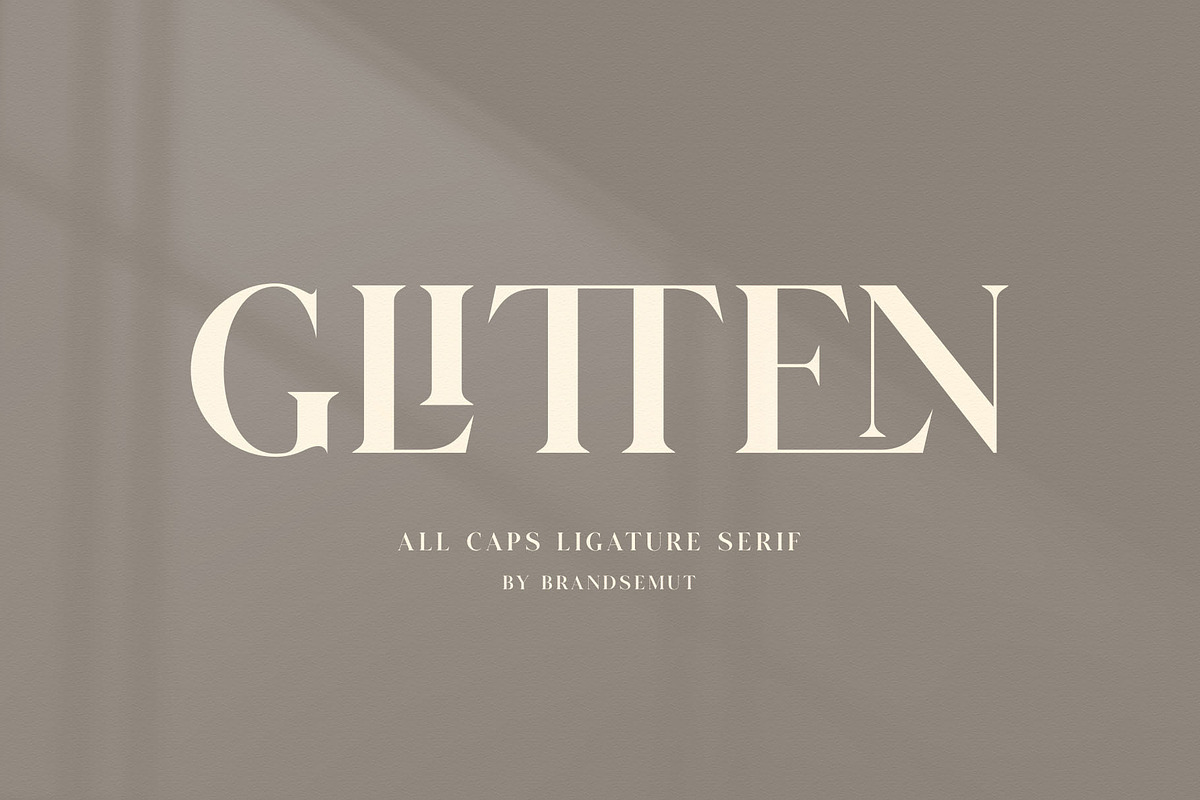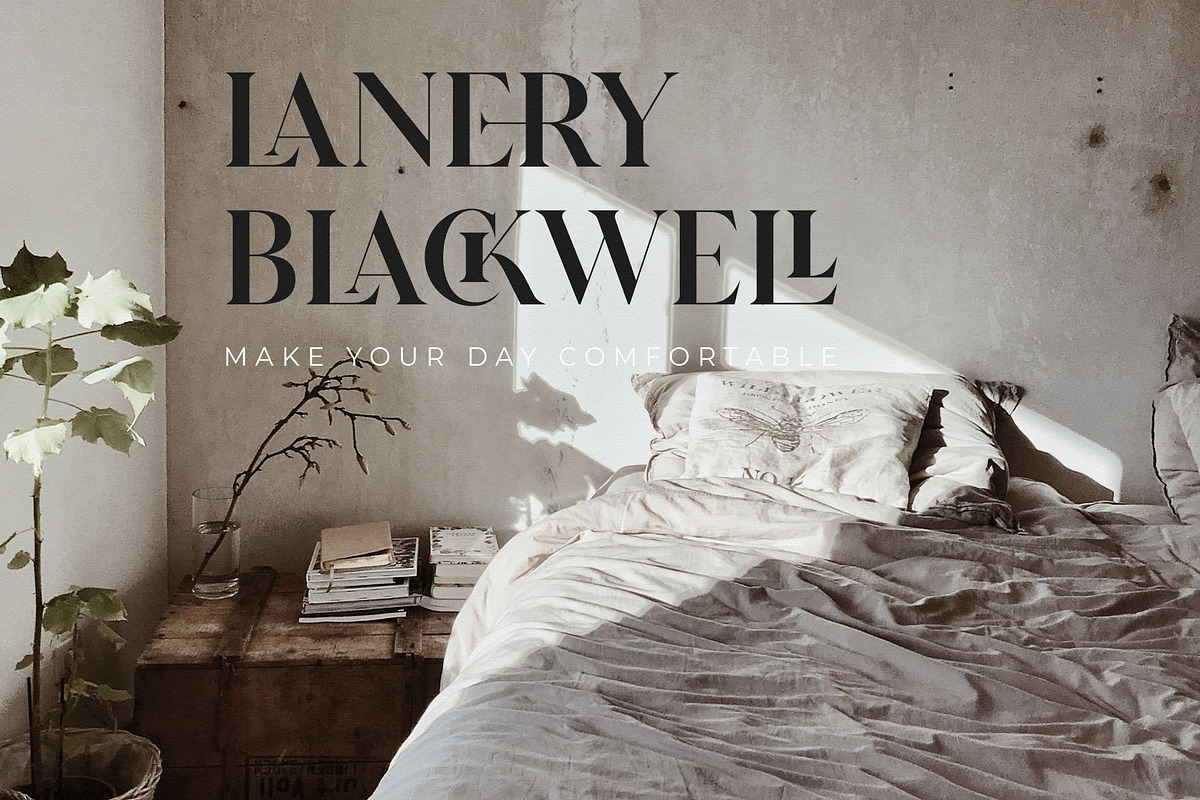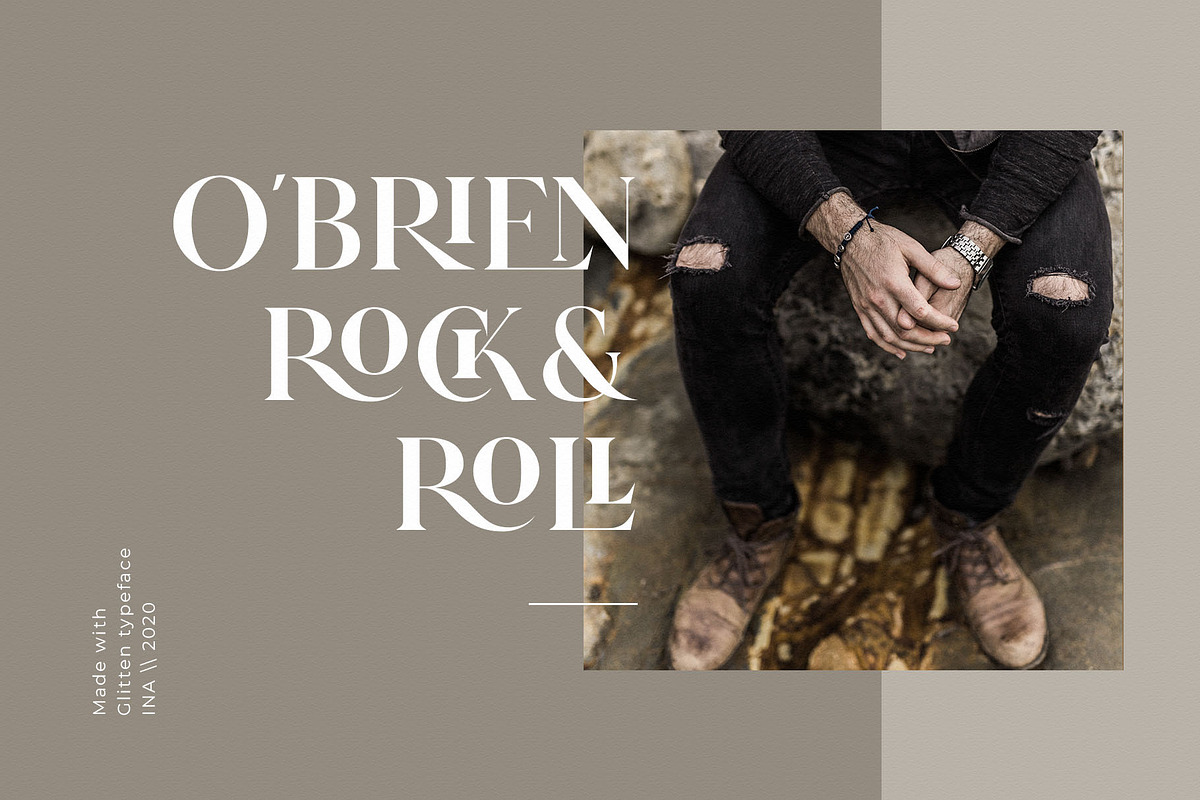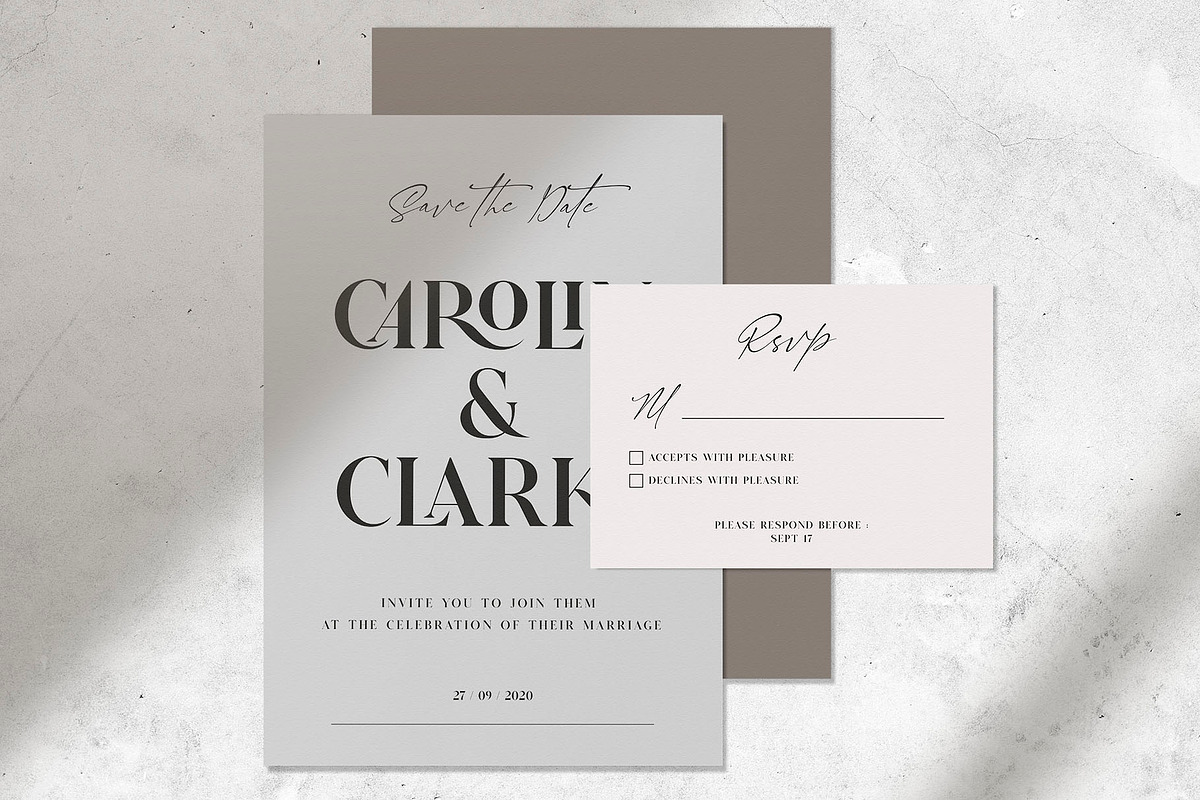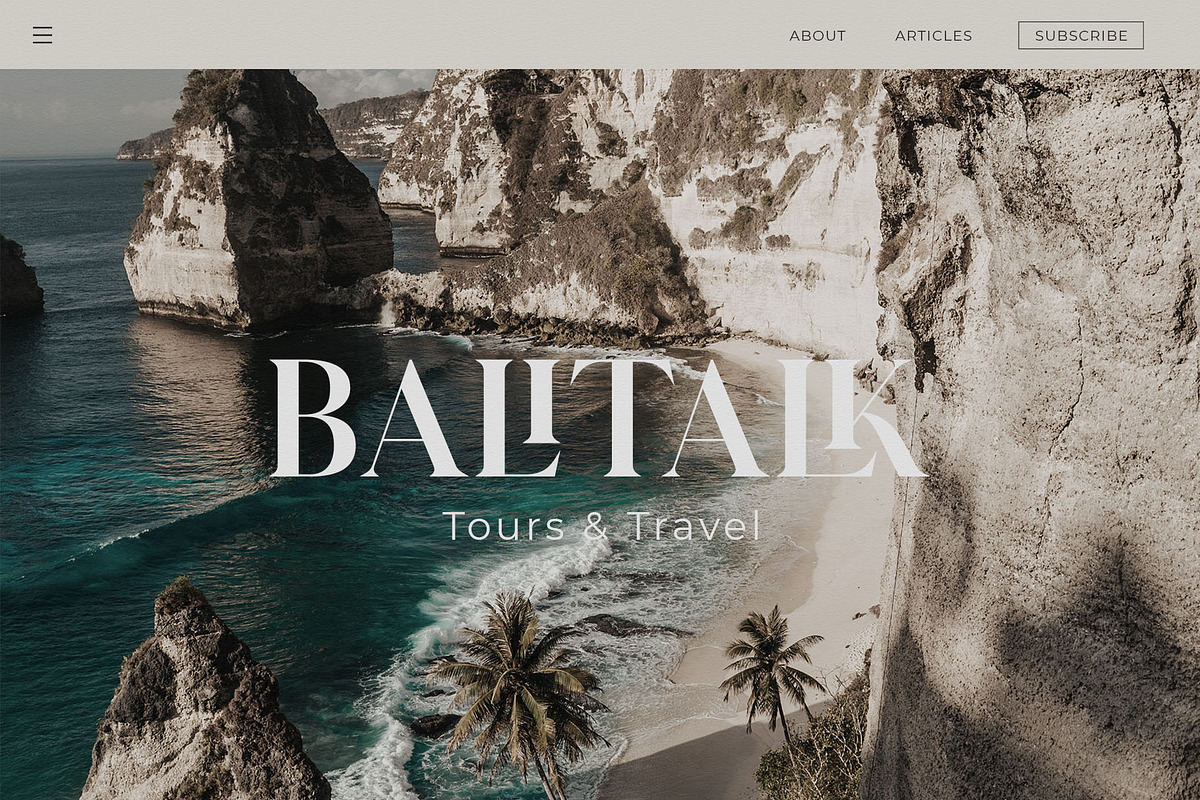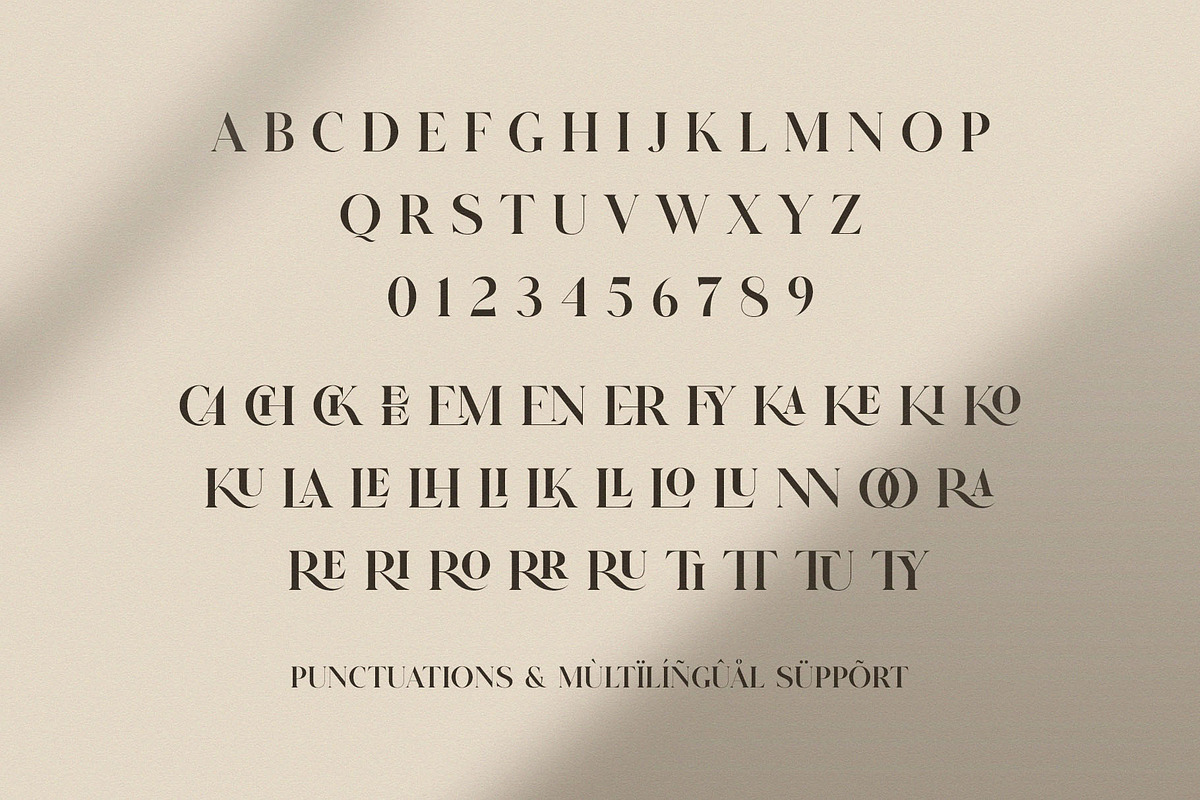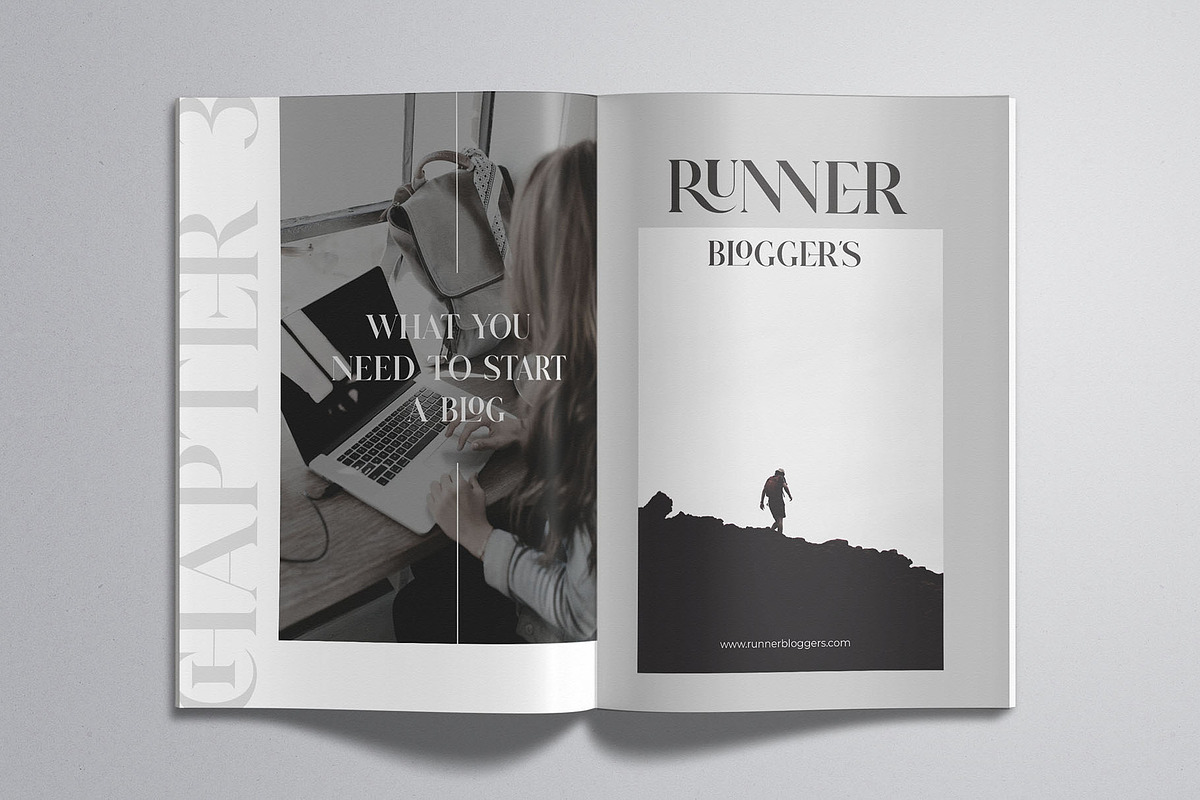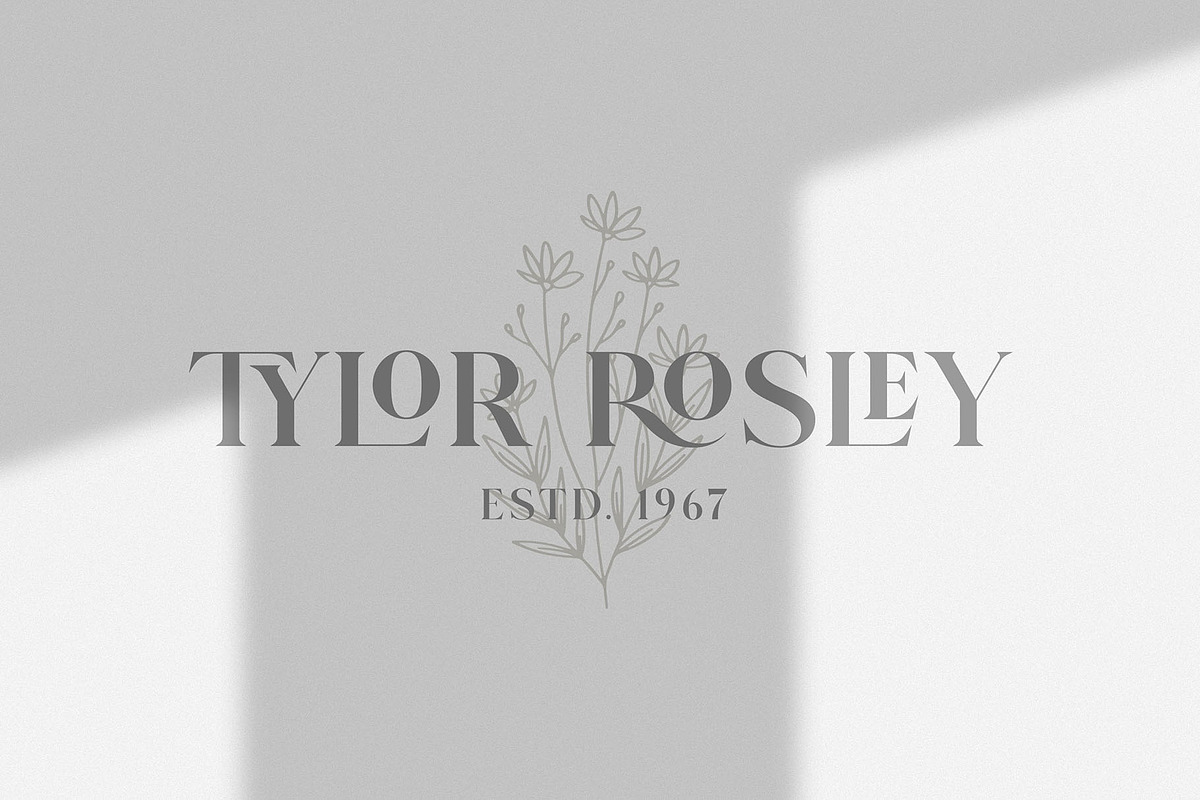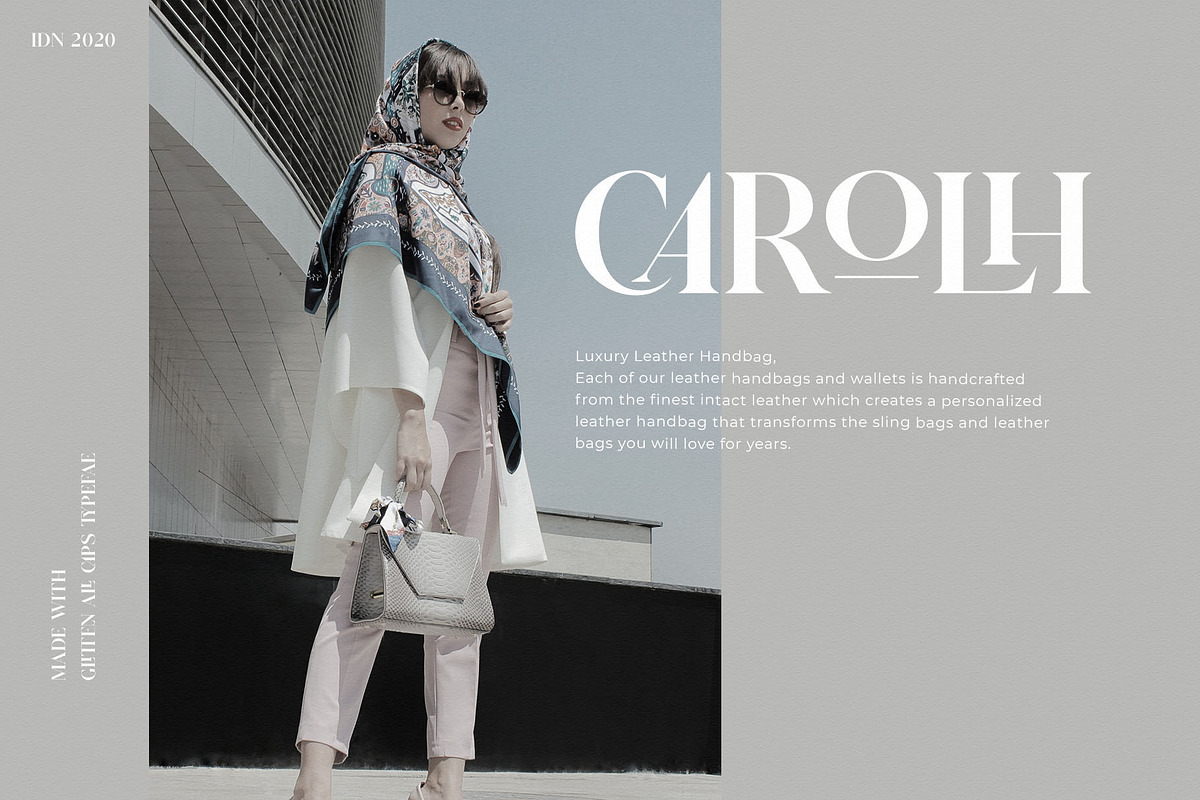
GLITTEN - All Caps Ligature Serif
Introducing the new GLITTEN ALL CAPS Ligature Serif!!! Glitten is a elegant and classy serif typeface – This font is both modern and nostalgic and works great for logos, magazine, social media. Already matched up and ready to be used together for your next design! For those of you who are needing a touch of elegant, stylish, classy, chic and modernity for your designs, this font was created for you! Glitten All Caps was built with OpenType features and includes 33 ligatures, numbers, punctuation, and it also supports other languages.